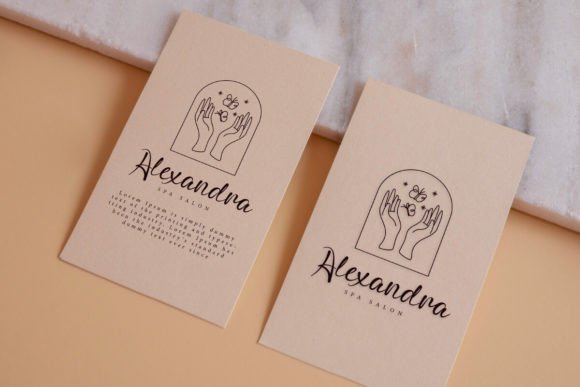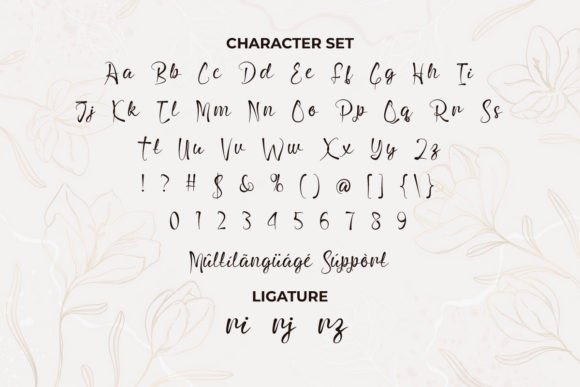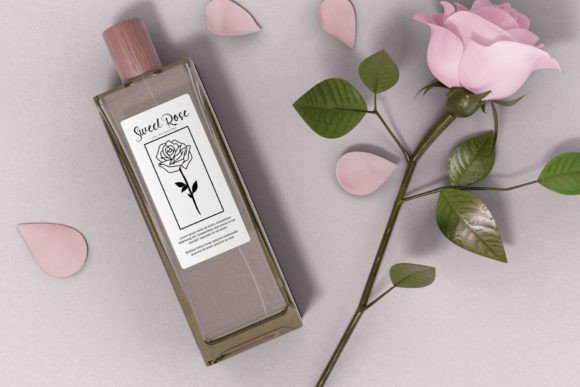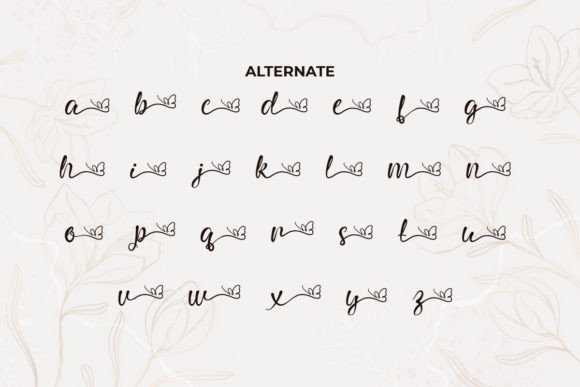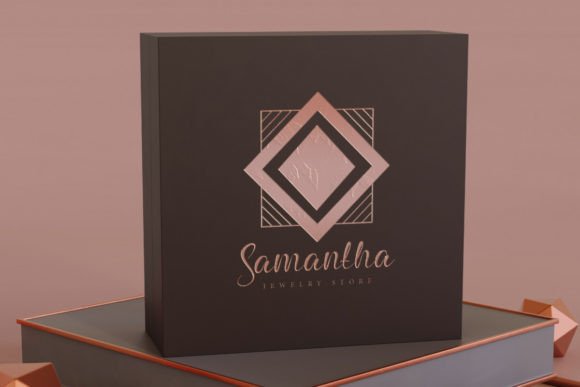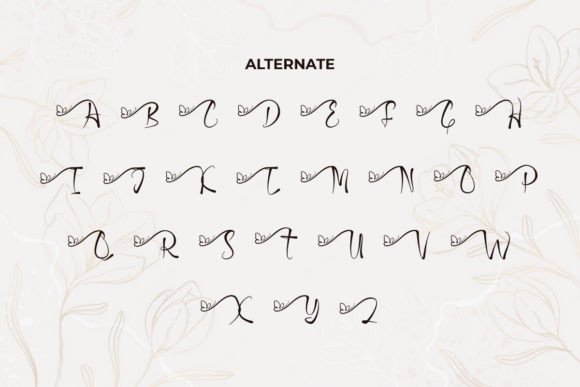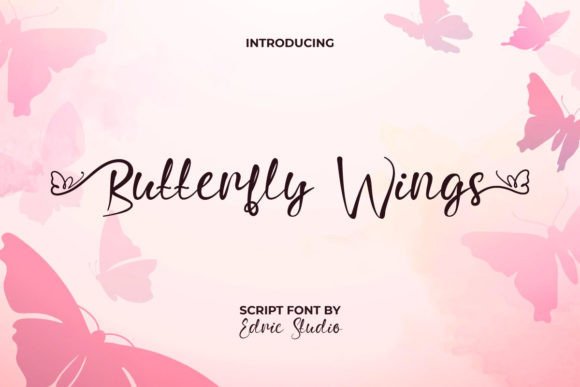
Butterfly Wings Font: Elevate Your Design with Elegance
Are you searching for a font that embodies beauty and sophistication? Look no further than the Butterfly Wings Font. This stunning script font is designed to radiate elegance, making it perfect for a wide range of industries and design applications.
What is Butterfly Wings Font?
Butterfly Wings Font is a beautiful script font that boasts a light, thin appearance. Its delicate curves and fluid lines evoke a sense of refinement and luxury, making it an ideal choice for designers and crafters seeking to add a touch of sophistication to their work.
Key Features of Butterfly Wings Font
• Elegant Script Design: Butterfly Wings Font features a classic script design that exudes elegance and refinement.
• Light and Thin Appearance: The font’s light and thin appearance makes it easy to read and perfect for use in a variety of design applications.
• High Versatility: Butterfly Wings Font is suitable for use in a wide range of industries, including boutique, herbal products, interior design, jewelry, perfume brand, printing, publishing, restaurant, salon, spa, and more.
Industries That Can Benefit from Butterfly Wings Font
Butterfly Wings Font is an incredibly versatile font that can be used in a variety of industries and design applications. Here are some examples:
• Boutique: Use Butterfly Wings Font to create eye-catching signage, packaging, and marketing materials for your boutique.
• Herbal Products: The font’s natural, elegant feel makes it perfect for use in branding and packaging for herbal products.
• Interior Design: Add a touch of sophistication to your interior design projects with Butterfly Wings Font.
• Jewelry: The font’s luxurious feel makes it ideal for use in jewelry branding and packaging.
• Perfume Brand: Use Butterfly Wings Font to create elegant and sophisticated branding and packaging for your perfume brand.
• Printing and Publishing: The font’s readability and elegance make it perfect for use in book titles, magazine headings, and other printing and publishing applications.
• Restaurant: Add a touch of elegance to your restaurant’s branding and marketing materials with Butterfly Wings Font.
• Salon and Spa: The font’s soothing, natural feel makes it perfect for use in branding and marketing materials for salons and spas.
Why Choose Butterfly Wings Font?
There are many reasons why Butterfly Wings Font stands out from the crowd. Here are just a few:
• Unique and Elegant Design: Butterfly Wings Font features a unique and elegant design that will set your work apart from the competition.
• High Readability: The font’s light and thin appearance makes it easy to read, even at small sizes.
• Versatility: Butterfly Wings Font can be used in a wide range of industries and design applications.
How to Use Butterfly Wings Font
Using Butterfly Wings Font is easy. Here are a few tips to get you started:
• Pair with Other Fonts: Pair Butterfly Wings Font with other fonts to create a unique and visually appealing design.
• Use in Headings and Titles: The font’s elegance and readability make it perfect for use in headings and titles.
• Experiment with Colors: Try out different colors and textures to add depth and interest to your design.
In conclusion, Butterfly Wings Font is a stunning script font that embodies elegance and sophistication. Its light and thin appearance, high versatility, and unique design make it perfect for use in a wide range of industries and design applications. Whether you’re a designer, crafter, or DIY enthusiast, Butterfly Wings Font is sure to elevate your work and add a touch of refinement to your designs.